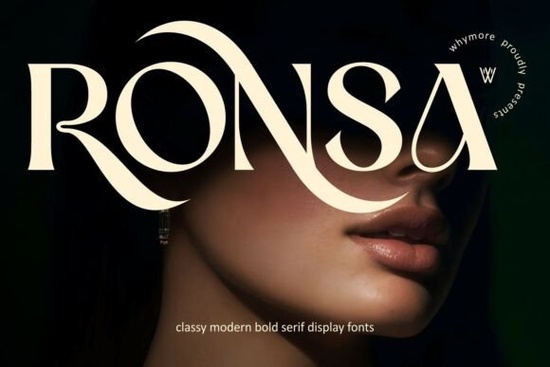
If you’ve been searching for a serif font that feels both bold and refined, Ronsa Font might be exactly what your next project needs. It’s built with clean, high-contrast strokes and subtle curves that give it a modern yet timeless presence perfect for designers who want their work to feel intentional and upscale without being overly ornate.
Whether you’re designing a boutique logo, packaging for a handmade product, or laying out editorial content for a print magazine, Ronsa holds its own. The letterforms are distinct enough to stand out in headlines but remain legible at smaller sizes, which makes it surprisingly versatile. You’ll find it works just as well on a wedding invitation as it does on a premium skincare label.
What kind of projects is Ronsa best suited for?
Ronsa was designed with intention. Its weight and structure lend themselves naturally to:
- Luxury branding think perfume bottles, boutique hotels, or artisanal chocolate labels
- Editorial layouts especially fashion, lifestyle, or architecture magazines
- Print-on-demand products mugs, tote bags, or art prints where typography carries the message
- Social media graphics quotes, announcements, or promotional banners that need visual authority
It pairs beautifully with minimalist sans-serifs or even script fonts like Georgia Praline when you want to create contrast without clutter. If you’re working on layered designs say, a poster with multiple type treatments Ronsa anchors the composition without overwhelming it.
How does Ronsa compare to other serif fonts on Creative Fabrica?
There’s no shortage of elegant serifs on Creative Fabrica, but Ronsa stands apart because of its balance between strength and grace. Fonts like Gibs lean more casual, while Luxurimo goes full glam with ultra-thin hairlines. Ethereal, as the name suggests, floats softly great for dreamy, feminine themes. Ronsa? It’s grounded. Confident. Built for impact.
That doesn’t mean it’s stiff. The curves in letters like “Q,” “g,” and “S” have personality not too playful, not too rigid. It’s the kind of font that looks expensive without trying too hard. For small business owners or Etsy sellers creating their own brand assets, that’s a huge win. You don’t need a design degree to make Ronsa look good it does most of the heavy lifting for you.
Will it work for both print and digital use?
Absolutely. One of the reasons crafters and POD sellers love this font is how reliably it renders across different materials. Whether you’re printing on matte cardstock, engraving on wood, or displaying text on a mobile screen, Ronsa keeps its character. The bold weight ensures readability even at smaller sizes, and the spacing is generous enough to avoid crowding.
For digital creators, it loads cleanly on websites and apps (when properly embedded), and for print designers, there are no unexpected ink bleeds or thin-line breaks. That reliability saves time and money especially if you’re producing physical goods or client work on tight deadlines.
Any tips for pairing Ronsa with other fonts?
Yes keep it simple. Ronsa already brings a lot of presence, so pair it with fonts that step back and let it shine. A clean, geometric sans-serif (like Montserrat or Avenir) creates a modern contrast. Or, if you’re going for warmth, try pairing it with a soft handwritten font for accents or subheadings.
Avoid pairing it with other bold serifs they’ll compete rather than complement. And if you’re using it for body text (which we don’t recommend unless it’s short-form), increase the line height slightly to preserve readability.
Quick checklist before you start using Ronsa:
- Test at different sizes especially if you’re using it on small items like stickers or tags
- Export outlines if sending files to printers or manufacturers, convert to paths to avoid missing font errors
- Pair thoughtfully one supporting font is usually enough; two max
If you’re still exploring options, take a few minutes to browse similar styles. Sometimes the right font isn’t the first one you click it’s the one that quietly fits the mood you’re trying to create. Ronsa doesn’t shout. It speaks clearly, with confidence. And in a world full of noisy design trends, that’s a rare and useful quality.